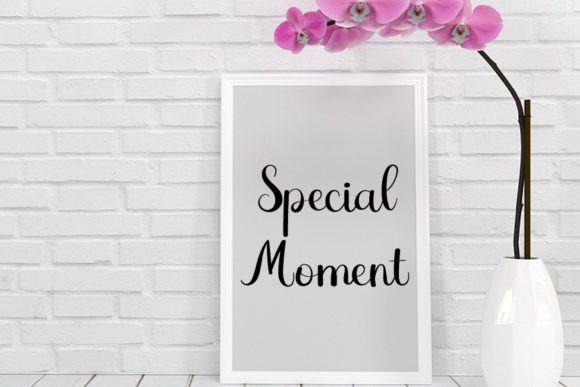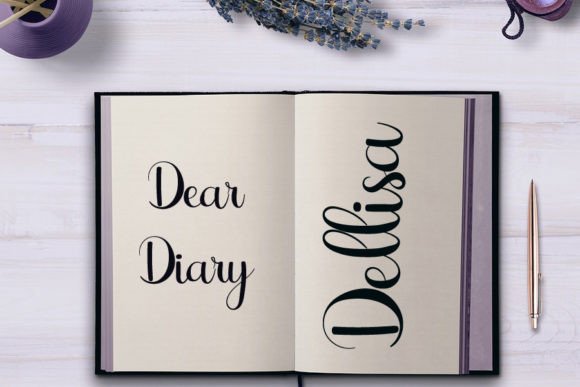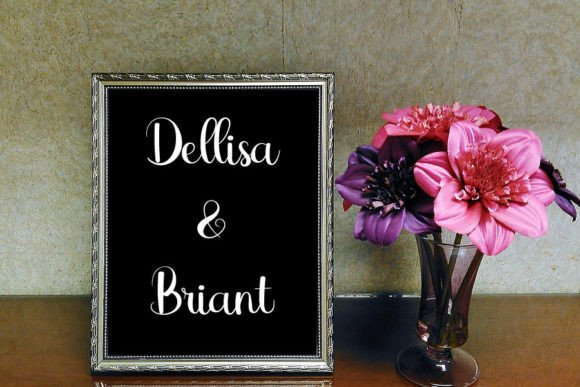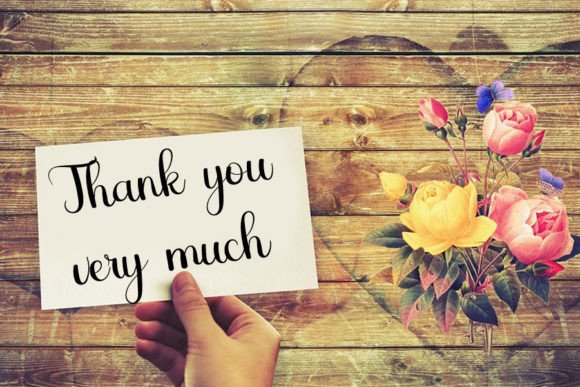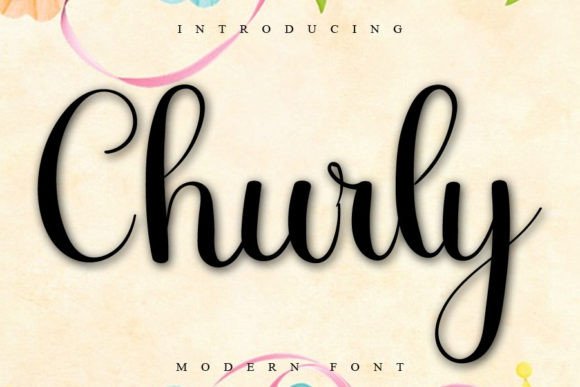
Introducing Churly Font: Elevate Your Designs with a Fresh and Beautiful Typeface
In the world of design, the right font can make all the difference. It can elevate your project from ordinary to extraordinary, convey the tone and personality of your brand, and leave a lasting impression on your audience. If you’re a designer, crafter, or business owner looking for a font that can help you stand out, look no further than Churly Font. This fresh and beautiful font is perfect for a wide range of design purposes, from YouTube banners and cover logo mockups to wedding invitations, ID cards, flyers, and crafts.
The Charm of Churly Font
Churly Font is a unique and simple typeface that is sure to capture the attention of your audience. Its clean lines, elegant curves, and beautiful proportions make it a versatile font that can be used in a variety of design contexts. Whether you’re creating a sophisticated brand identity or a playful craft project, Churly Font is the perfect choice. Its fresh and modern look will add a touch of elegance and sophistication to your designs, setting you apart from the competition.
What Makes Churly Font So Special?
So, what makes Churly Font so special? Here are just a few reasons why designers and crafters love this font:
- Unique and Simple: Churly Font has a distinctive look that is both simple and unique. Its clean lines and elegant curves make it easy to read and visually appealing.
- Versatile: Churly Font can be used in a wide range of design contexts, from formal and professional to playful and creative.
- Elegant and Sophisticated: Churly Font adds a touch of elegance and sophistication to any design, making it perfect for high-end brands and luxury products.
- Easy to Read: Despite its elegant look, Churly Font is easy to read, making it perfect for body text and headlines.
How to Use Churly Font in Your Designs
Churly Font is a versatile typeface that can be used in a wide range of design projects. Here are just a few ideas to get you started:
- YouTube Banners: Create eye-catching YouTube banners that showcase your brand’s personality and style.
- Cover Logo Mockups: Create stunning cover logo mockups that showcase your brand’s logo in a beautiful and elegant way.
- Wedding Invitations: Create beautiful and elegant wedding invitations that set the tone for the big day.
- ID Cards: Create professional and stylish ID cards that make a great impression.
- Flyers: Create eye-catching flyers that grab attention and communicate your message effectively.
- Crafts: Use Churly Font to add a touch of elegance and sophistication to your craft projects, from handmade cards to DIY decorations.
The Benefits of Using Churly Font
By using Churly Font in your designs, you can enjoy a range of benefits, including:
- Improved Brand Identity: Churly Font can help you create a consistent and professional brand identity that sets you apart from the competition.
- Increased Engagement: The fresh and modern look of Churly Font can help grab attention and engage your audience.
- Easier Design Process: With its clean lines and elegant curves, Churly Font is easy to work with, making the design process faster and more efficient.
- Better Communication: Churly Font can help you communicate your message more effectively, whether you’re creating a brand identity, advertising campaign, or craft project.
In conclusion, Churly Font is a fresh and beautiful font that is perfect for designers, crafters, and business owners looking to elevate their designs. Its unique and simple look, versatility, and elegance make it a great choice for a wide range of design purposes. By using Churly Font, you can improve your brand identity, increase engagement, and enjoy a range of other benefits. So why wait? Download Churly Font today and take your designs to the next level!